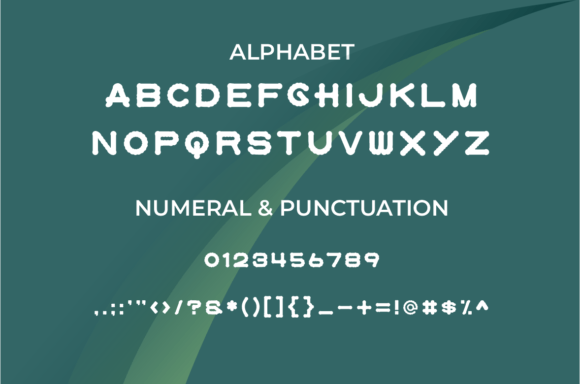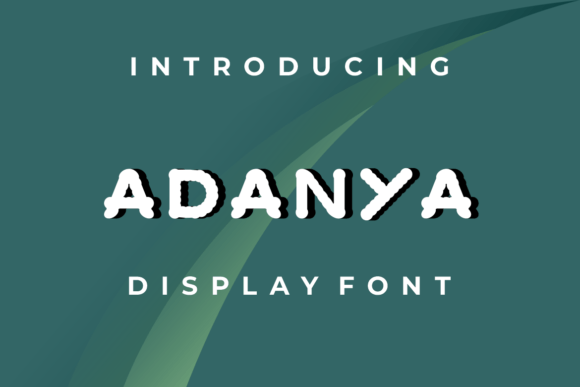
Introducing Adanya Font: Elevate Your Designs with a Modern and Authentic Display Font
In the world of design, typography plays a crucial role in conveying messages, expressing creativity, and capturing the audience’s attention. A font can make or break a design, and that’s where Adanya Font comes into play. Adanya is a modern and authentic display font designed to elevate your fonts’ library and take your creations to the next level. In this article, we’ll explore the features, benefits, and uses of Adanya Font, and why it’s a must-have for designers and crafters.
What is Adanya Font?
Adanya Font is a modern and authentic display font that boasts a unique and stylish design. Its sleek lines, elegant curves, and precise craftsmanship make it perfect for a wide range of design projects, from branding and advertising to packaging and digital media. Adanya Font is designed to be versatile, making it suitable for various topics and themes, ensuring that your designs always stand out.
Key Features of Adanya Font
- Modern and Authentic Design: Adanya Font features a modern and authentic design that exudes elegance and sophistication.
- Versatility: Its versatility makes it suitable for various design projects, including branding, advertising, packaging, and digital media.
- Unique and Stylish: Adanya Font’s unique and stylish design ensures that your creations stand out from the crowd.
- Precise Craftsmanship: The font’s precise craftsmanship guarantees a high level of legibility and readability.
Benefits of Using Adanya Font
Adanya Font offers numerous benefits to designers and crafters, including:
- Elevate Your Designs: Adanya Font has the potential to elevate any creation, making it perfect for designers looking to take their designs to the next level.
- Time-Saving: With Adanya Font, you can save time and effort in creating custom fonts or searching for the perfect font for your project.
- Consistency: Using Adanya Font ensures consistency in your designs, making your brand or project easily recognizable.
- Creative Freedom: Adanya Font gives you the creative freedom to experiment with different design styles and ideas.
Who Can Benefit from Adanya Font?
Adanya Font is perfect for:
- Graphic Designers: Graphic designers can use Adanya Font to create stunning visual designs, logos, and branding materials.
- Crafters: Crafters can use Adanya Font to create beautiful and unique crafts, such as handmade cards, invitations, and DIY projects.
- Digital Artists: Digital artists can use Adanya Font to create amazing digital art, illustrations, and graphics.
- Marketing and Advertising Professionals: Marketing and advertising professionals can use Adanya Font to create eye-catching ads, posters, and promotional materials.
In conclusion, Adanya Font is a modern and authentic display font that can elevate any design project. Its versatility, unique design, and precise craftsmanship make it perfect for designers and crafters looking to take their creations to the next level. With Adanya Font, you can save time, ensure consistency, and enjoy creative freedom. Whether you’re a graphic designer, crafter, digital artist, or marketing professional, Adanya Font is a must-have in your fonts’ library.